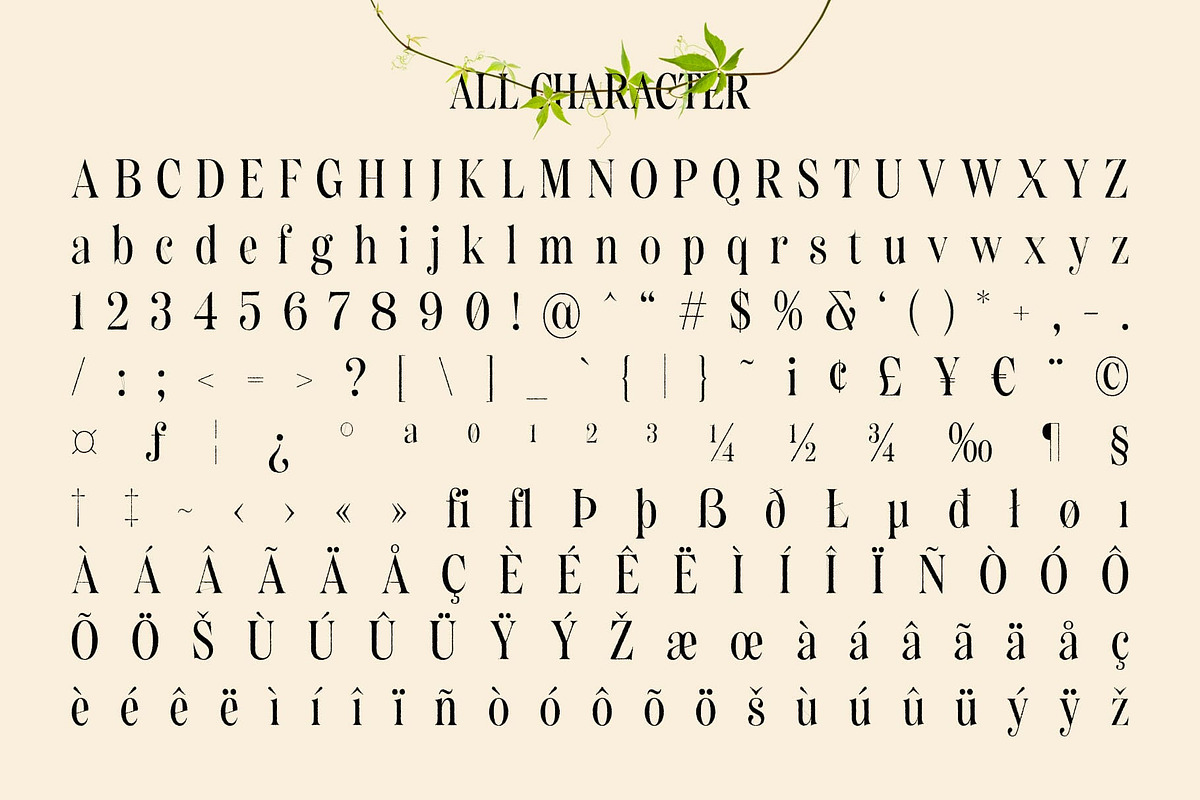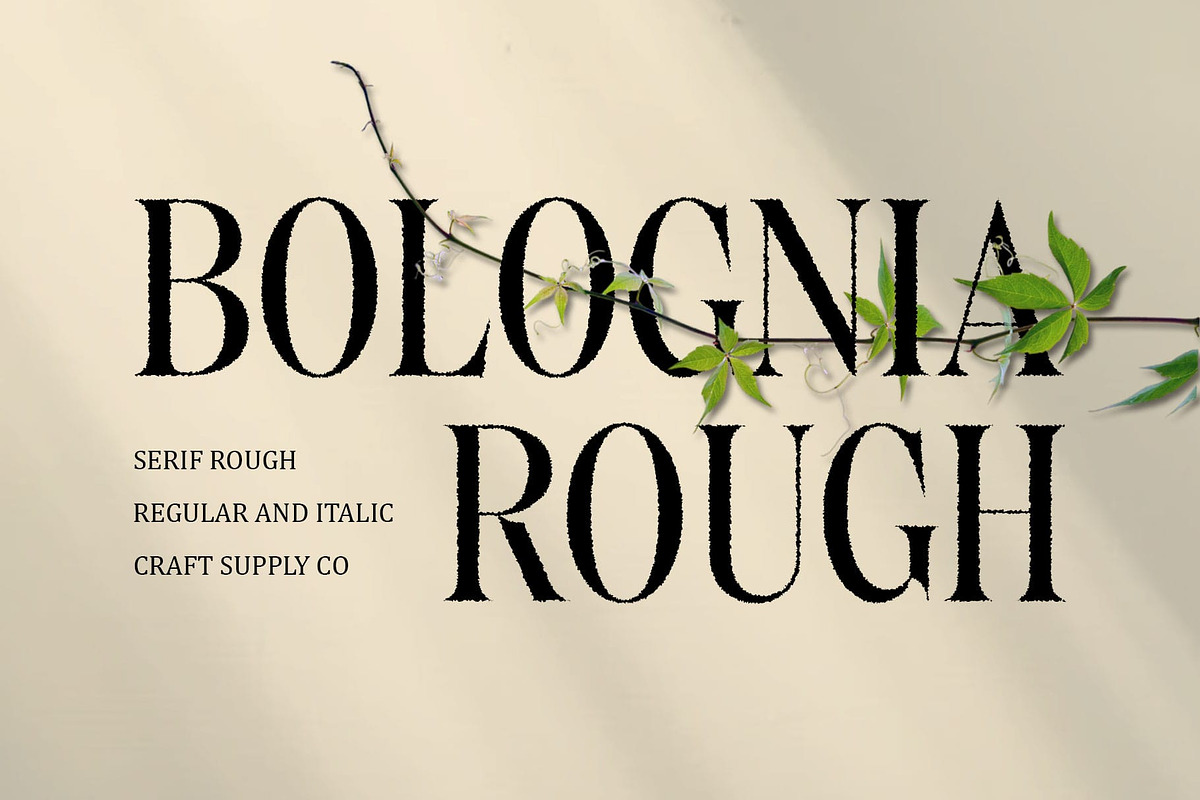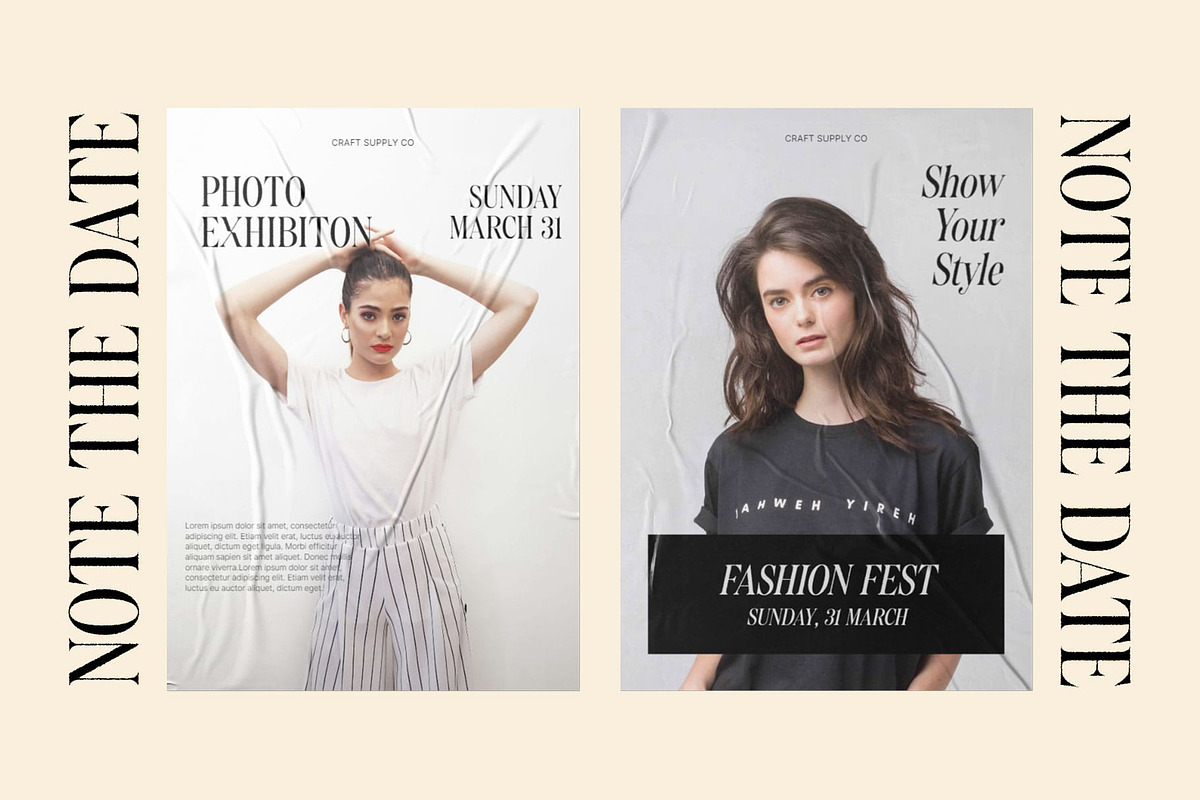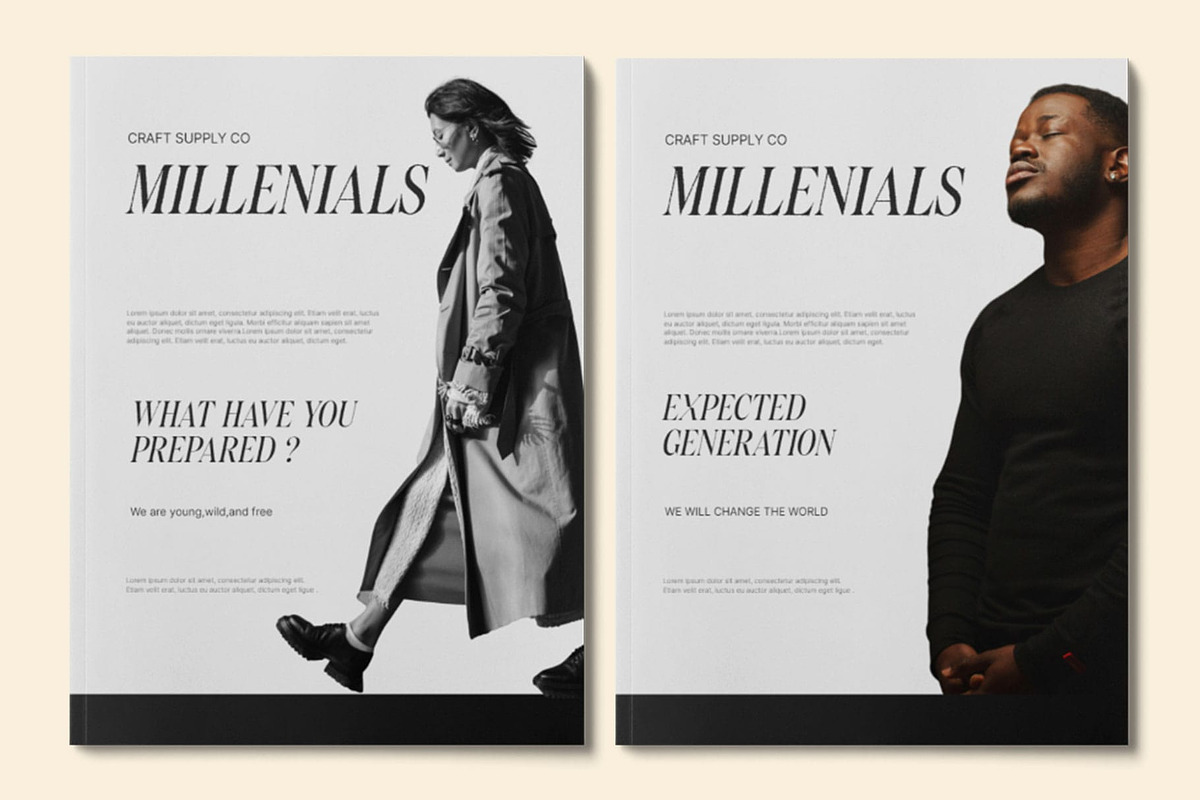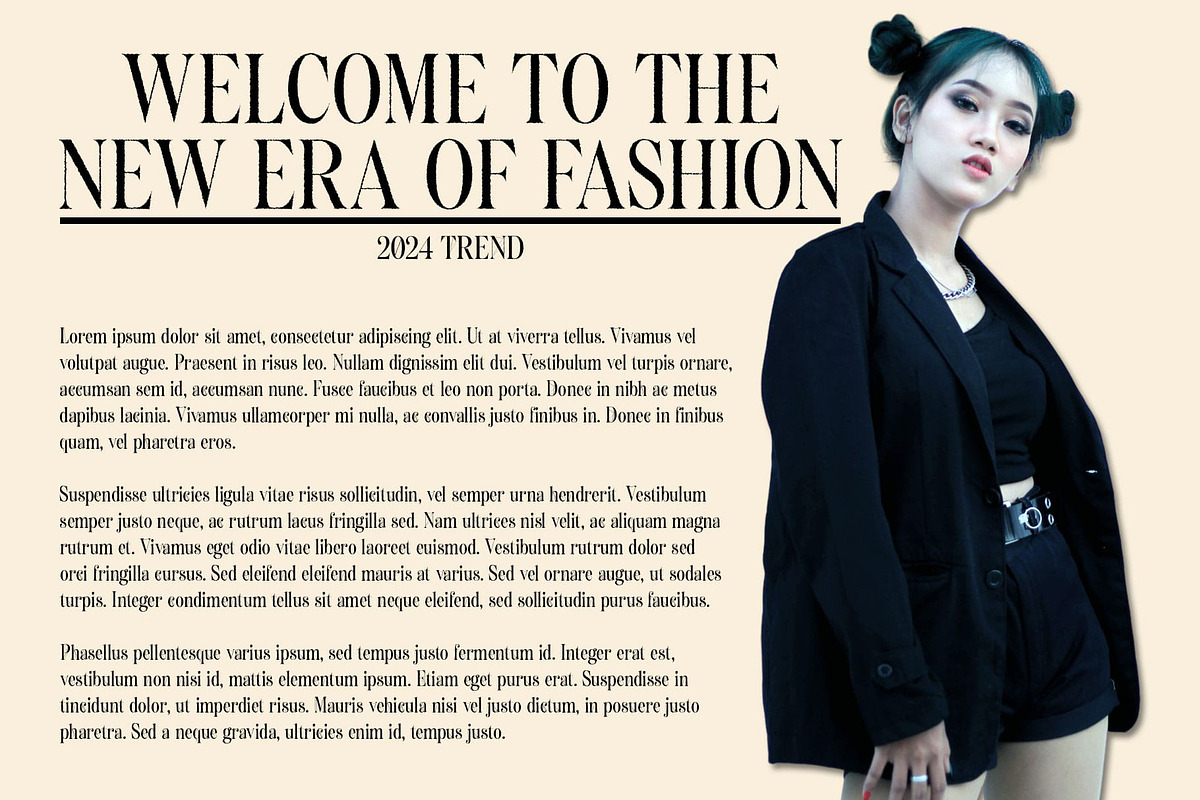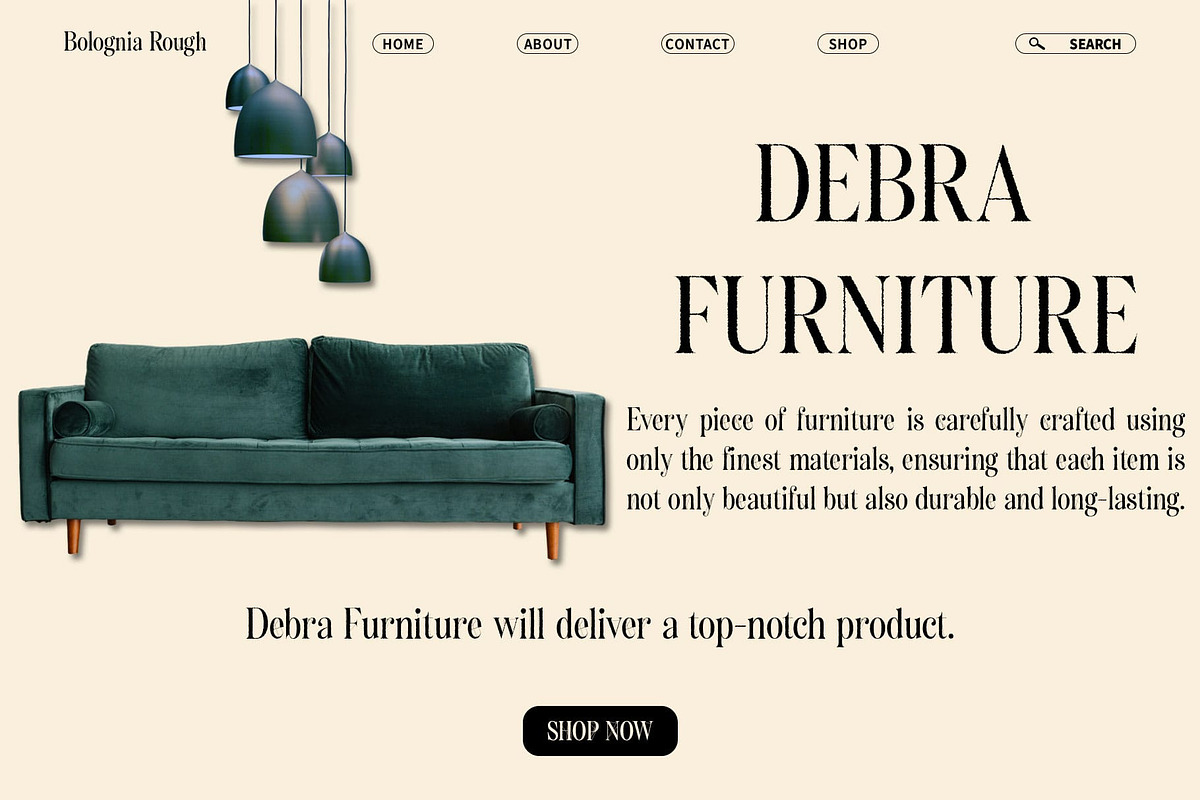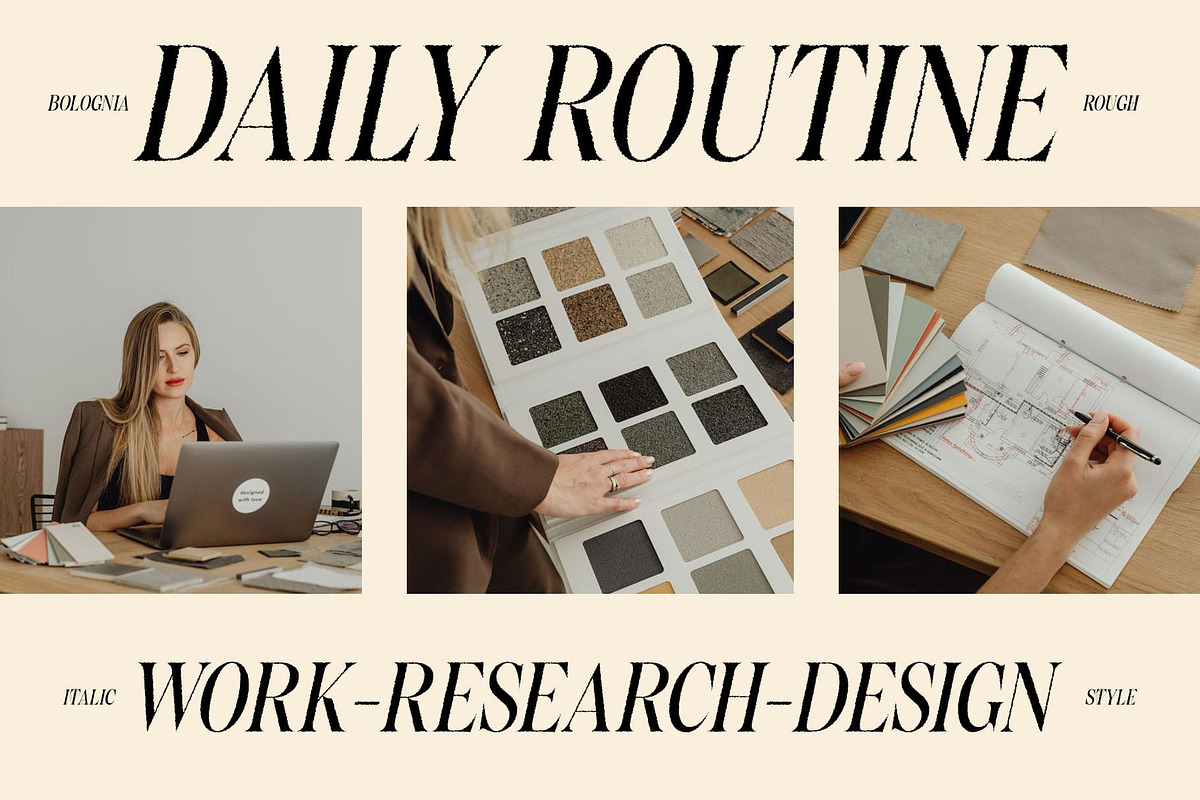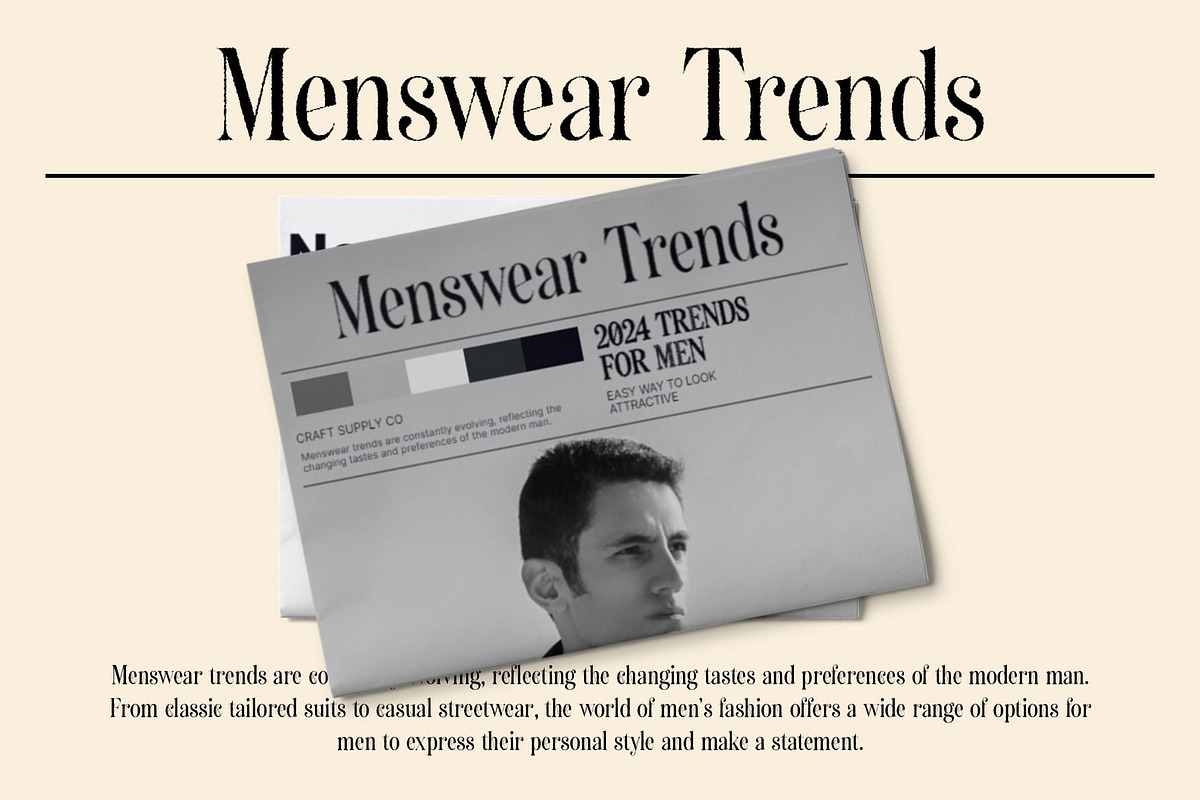
Bolognia Rough
Bolognia Rough: Bold and Striking Display Typeface
Condensed Serif Elegance Bolognia Rough presents a striking display typeface with a condensed serif design that exudes elegance and sophistication. Its high-contrast strokes and narrow proportions command attention in any setting.
Rough Texture for Added Character Adding to its allure is the rough texture effect, which imbues This font with a distinct personality and character. This unique feature enhances its visual appeal, making it a standout choice for display projects.
Tailored for Display Needs Crafted specifically for display purposes, This font is well-suited for a wide range of applications. From headlines to branding materials, its bold and condensed form ensures maximum impact and legibility.
Versatility and Impact Despite its condensed form, This font maintains remarkable legibility and versatility. Whether used in print or digital media, it delivers a powerful visual impact that captivates audiences and reinforces brand identity.
Make a Statement This font is more than just a typeface; it’s a statement maker. With its condensed serif design, rough texture effect, and striking contrast, it offers a perfect blend of elegance and character for all your display needs. Let This font elevate your designs and leave a lasting impression.